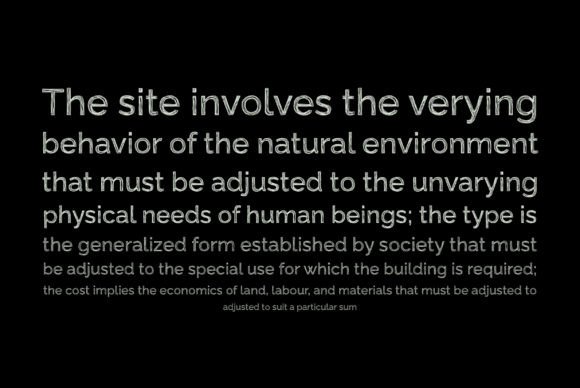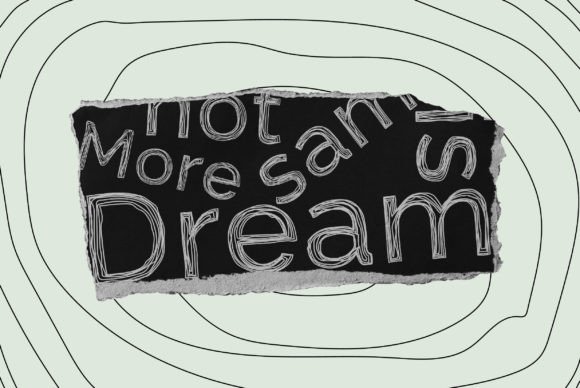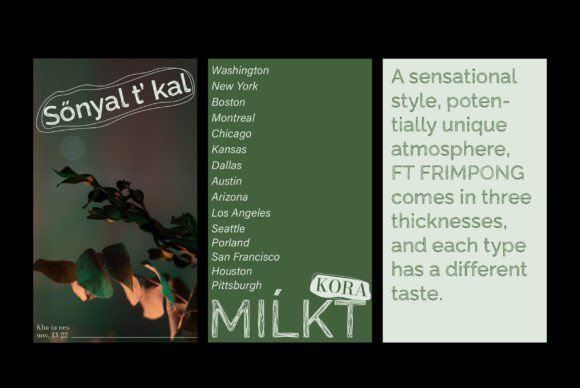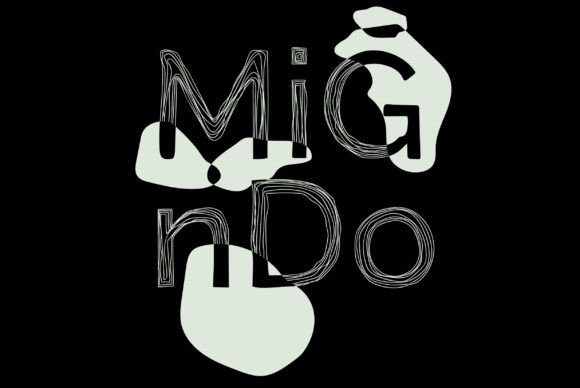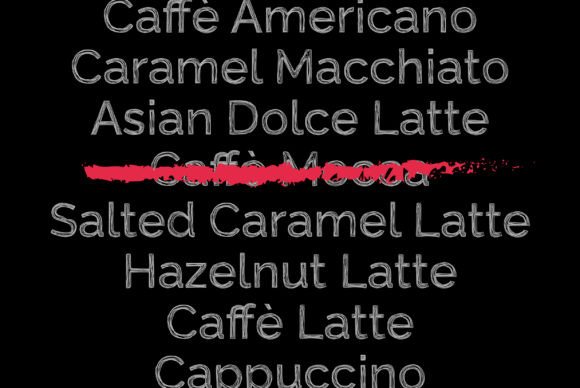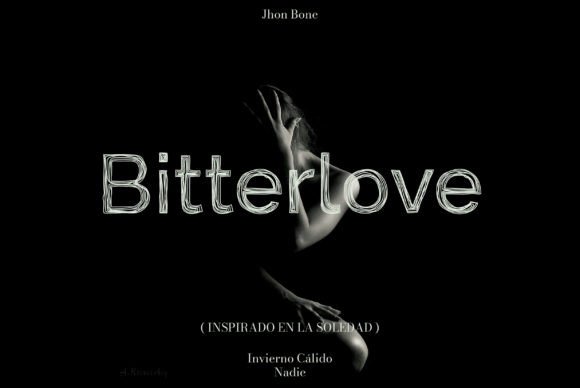
Introducing Frimpong Font: The Ultimate Handwritten Display Font for Crafty Ideas
Are you a designer or crafter looking for a fun and versatile font to add a personal touch to your projects? Look no further than Frimpong Font! This handwritten display font is perfect for anyone who wants to add a dash of personality and whimsy to their crafty ideas. In this article, we’ll dive into the features and benefits of Frimpong Font, and explore how you can use it to take your designs to the next level.
What is Frimpong Font?
Frimpong Font is a carefully crafted handwritten display font that exudes a sense of playfulness and charm. Its unique and irregular strokes make it perfect for adding a touch of personality to your designs. Whether you’re working on a DIY project, creating social media graphics, or designing a brand identity, Frimpong Font is sure to make your work stand out.
Key Features of Frimpong Font
- Handwritten style: Frimpong Font has a beautiful, handwritten style that’s perfect for adding a personal touch to your designs.
- Versatile: This font is highly versatile and can be used for a wide range of projects, from crafty DIY projects to professional design work.
- Easy to read: Despite its playful style, Frimpong Font is easy to read, making it perfect for use in titles, headings, and other display text.
- Unique and irregular strokes: The font’s unique and irregular strokes add a touch of whimsy and personality to your designs.
Benefits of Using Frimpong Font
So why should you choose Frimpong Font for your next project? Here are just a few benefits of using this amazing font:
- Adds personality to your designs: Frimpong Font is the perfect way to add a touch of personality and whimsy to your designs.
- Perfect for crafty projects: If you’re working on a crafty DIY project, Frimpong Font is the perfect choice.
- Great for social media graphics: Frimpong Font is also perfect for creating social media graphics that stand out from the crowd.
Tips and Tricks for Using Frimpong Font
Here are a few tips and tricks to help you get the most out of Frimpong Font:
- Experiment with different sizes: Frimpong Font looks great in a variety of sizes, so don’t be afraid to experiment.
- Pair with other fonts: Try pairing Frimpong Font with other fonts for a unique and interesting look.
- Use it for titles and headings: Frimpong Font is perfect for use in titles and headings, where you want to make a statement.
In conclusion, Frimpong Font is a fun and versatile handwritten display font that’s perfect for adding a touch of personality to your crafty ideas. With its unique and irregular strokes, easy readability, and versatility, Frimpong Font is sure to become a favorite in your font collection. So why wait? Download Frimpong Font today and start creating amazing designs that stand out from the crowd!